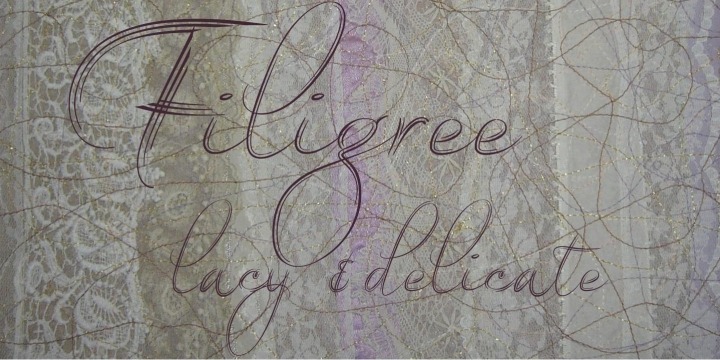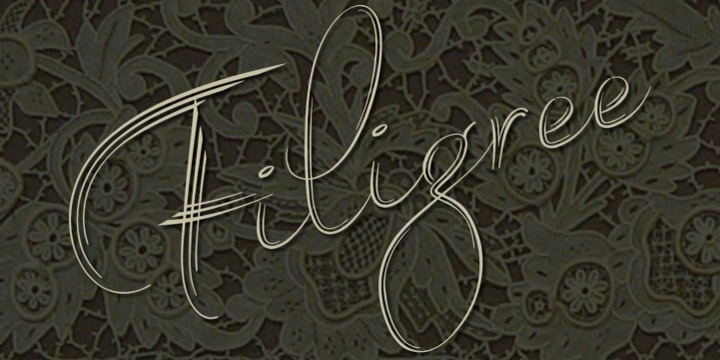
Filigree
Font Family by Scholtz Fonts
Filigree, reminiscent of the delicate lace and jewelry produced in Europe in the 16th to 18th centuries, was inspired by the font Always, and by the way in which the threads (or filia) of the characters in Always intertwined.
It has a soft, wafty character. It is best used as a display font at a relatively large size. At too small a size the delicacy of the individual filaments will be lost. Best results also from a combination of upper and lower case characters. Using upper case characters alone will not look as good. Alternate characters and ligatures are also included. If your application program supports ?kerning? then I suggest that you turn it on. Although not essential, this will enhance the spacing of the letters.
The font contains over 272 characters - (upper and lower case characters, punctuation, numerals, symbols and accented characters are present). It also includes a number of "open-type" characters - these enhance the flexibility of the font by providing alternatives that are used either at the discretion of the designer or are determined by the circumstances in which the font is used. It has all the accented characters used in the major European languages.